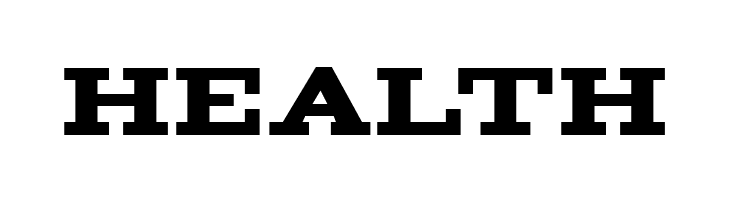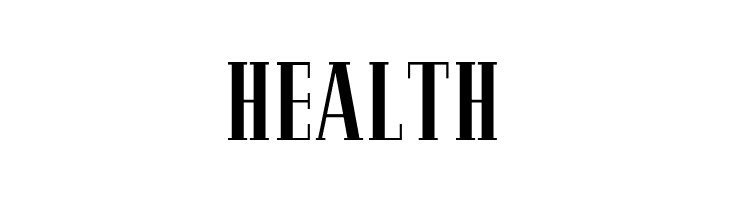
A bold, classic serif font with strong, elegant strokes.
A bold, vintage-inspired serif font with thick strokes and a compact design.
A bold slab serif font with strong, block-like serifs and uniform stroke width.
A bold, vintage-inspired slab serif with strong, block-like serifs.
A bold, classic serif font with high contrast and strong visual impact.
A bold slab serif font with strong, block-like serifs and a modern twist.
A bold, modern font with clean lines and a strong presence.
A bold, high-contrast serif font with strong, authoritative strokes.